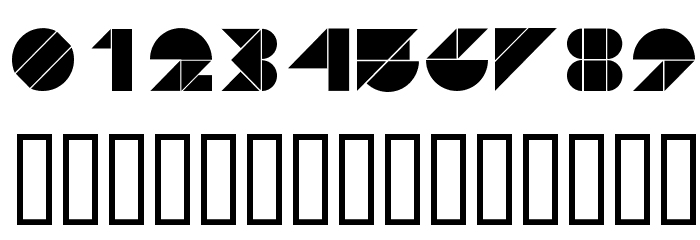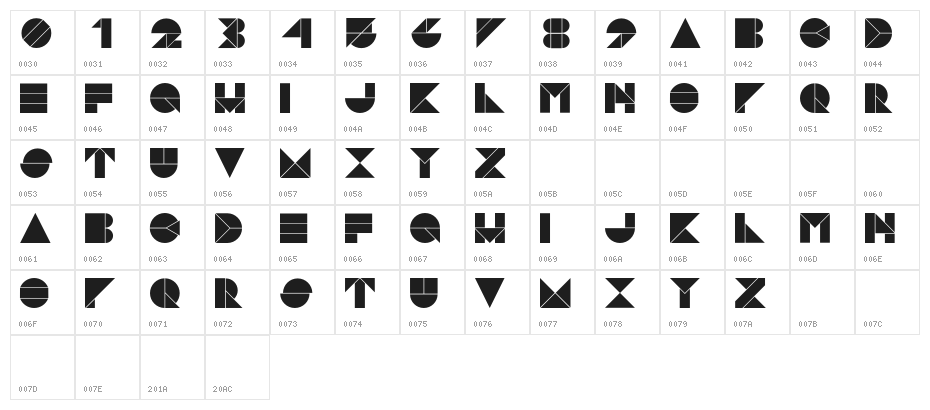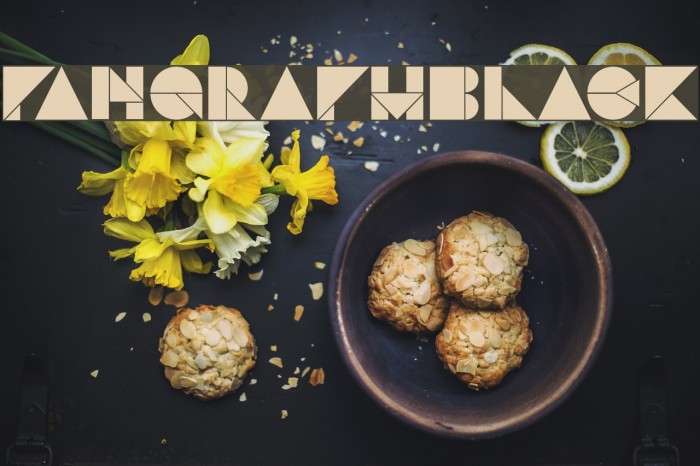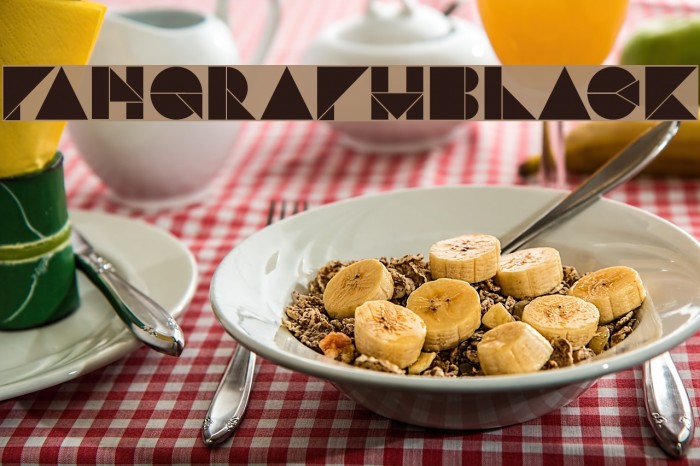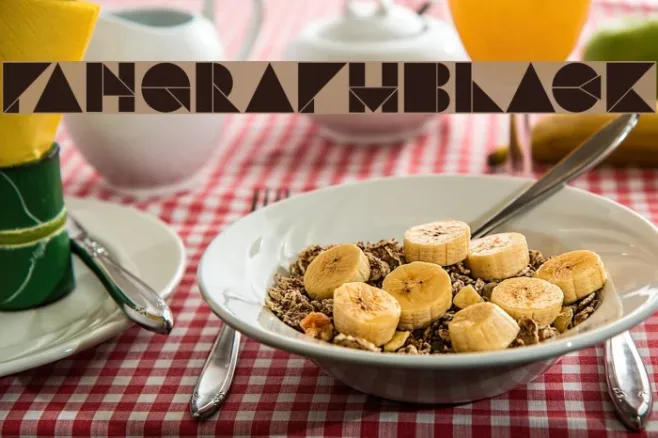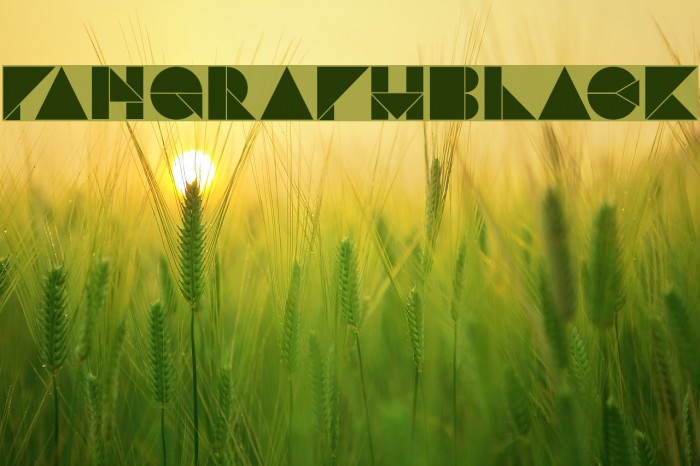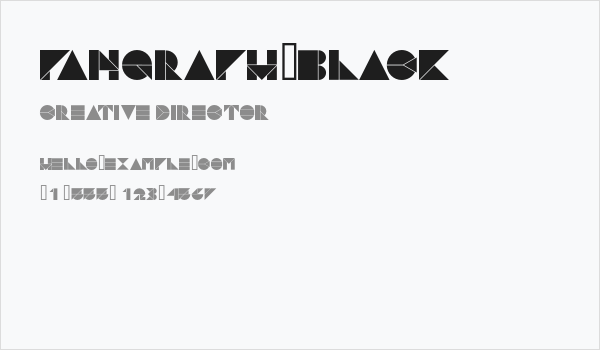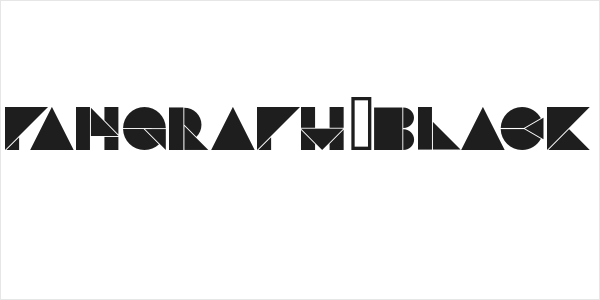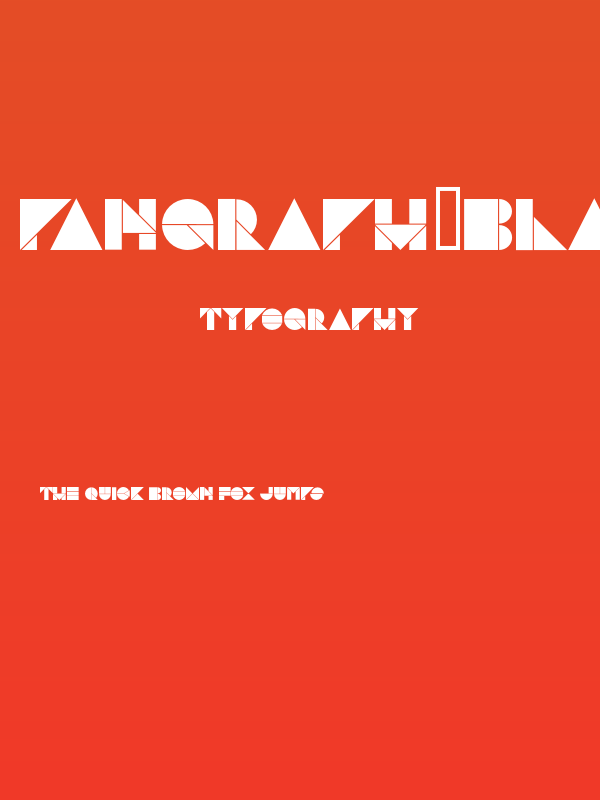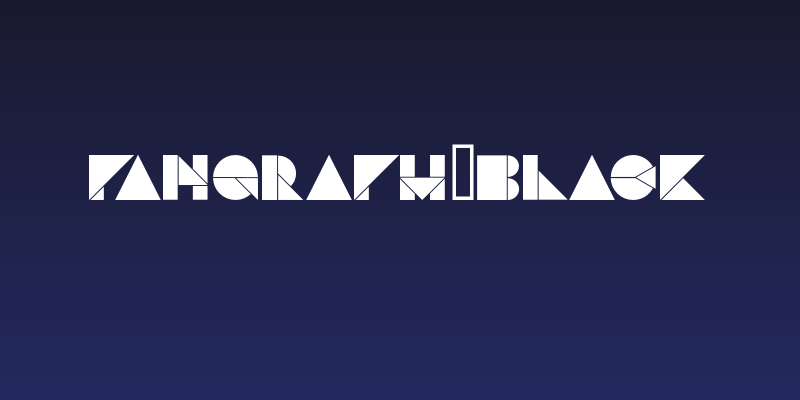
Pangraph-Black Font
Pangraph-Black Description
This font features a bold, geometric design with a modern and artistic flair. Each character is constructed using a combination of solid shapes and negative space, creating a striking visual impact. The uppercase and lowercase letters maintain a consistent style, emphasizing angular and circular forms. The numbers and special characters follow the same geometric pattern, ensuring uniformity across all glyphs. The font's unique style makes it ideal for creative and contemporary projects where a strong visual statement is desired.
| Proposed Projects | Ideal for branding, posters, album covers, and other creative projects requiring a bold visual impact. |